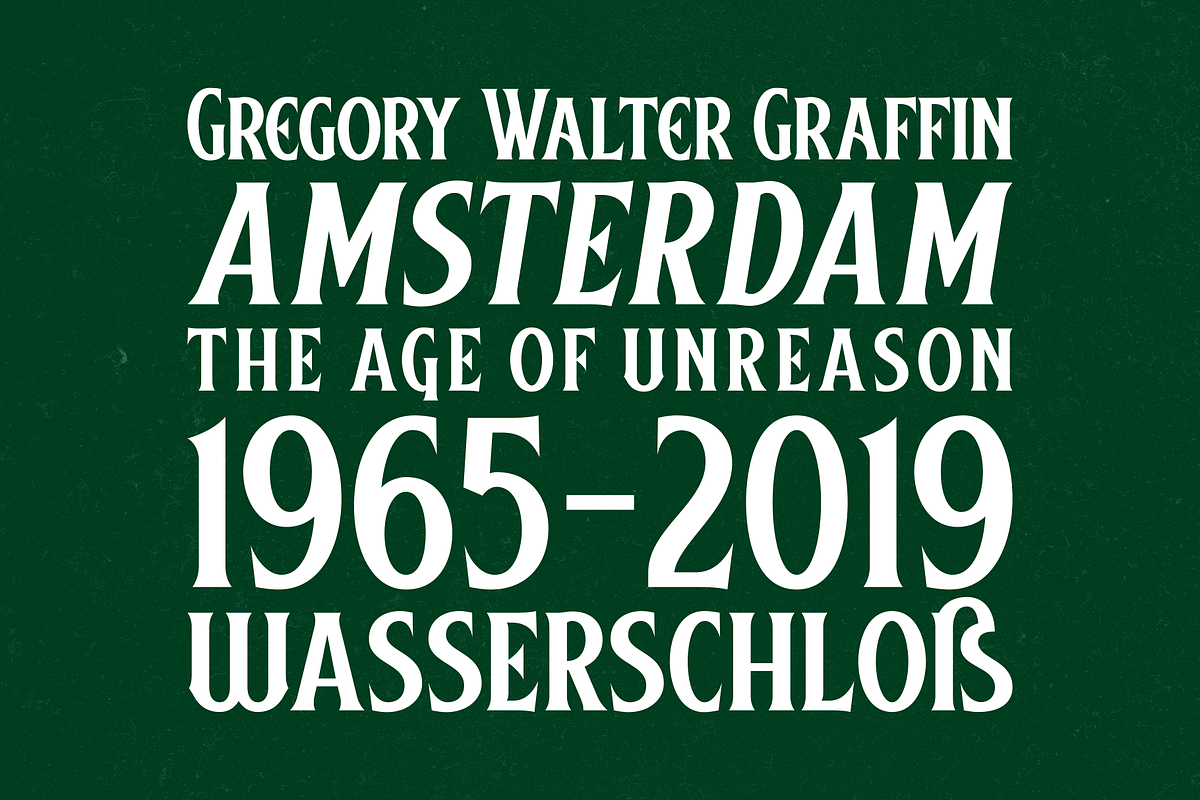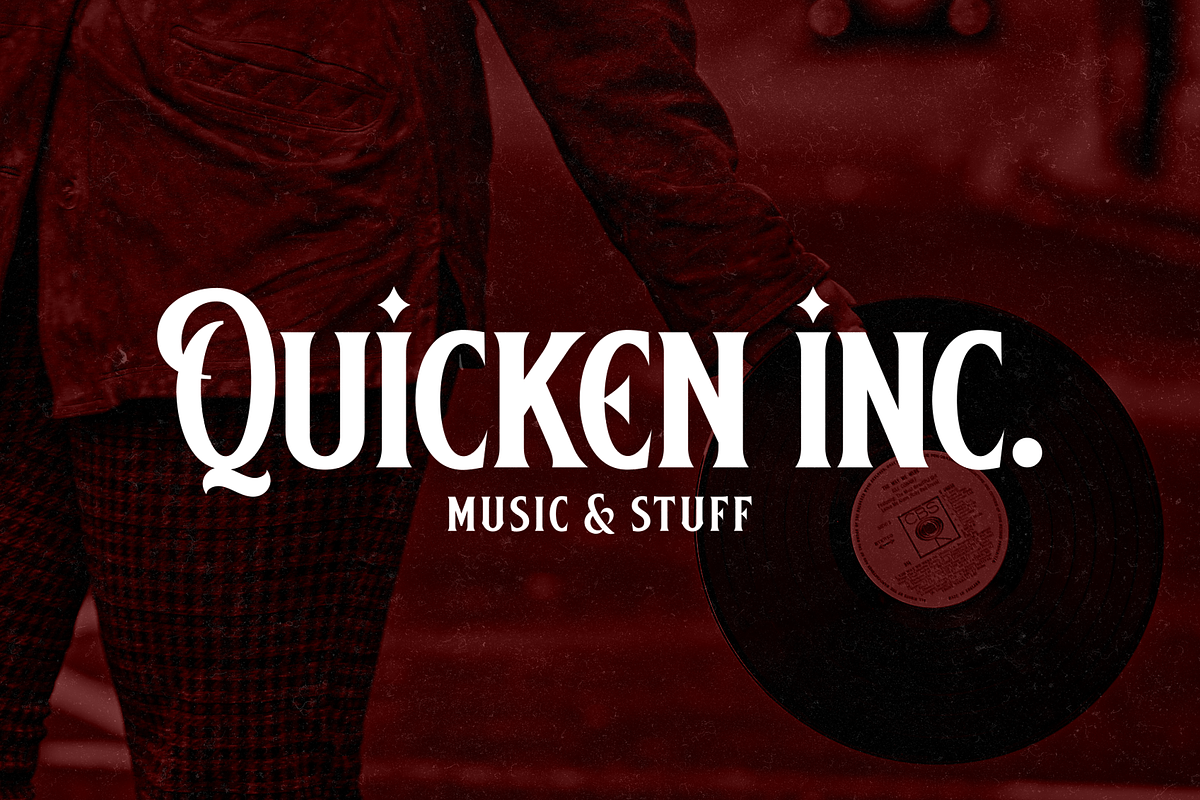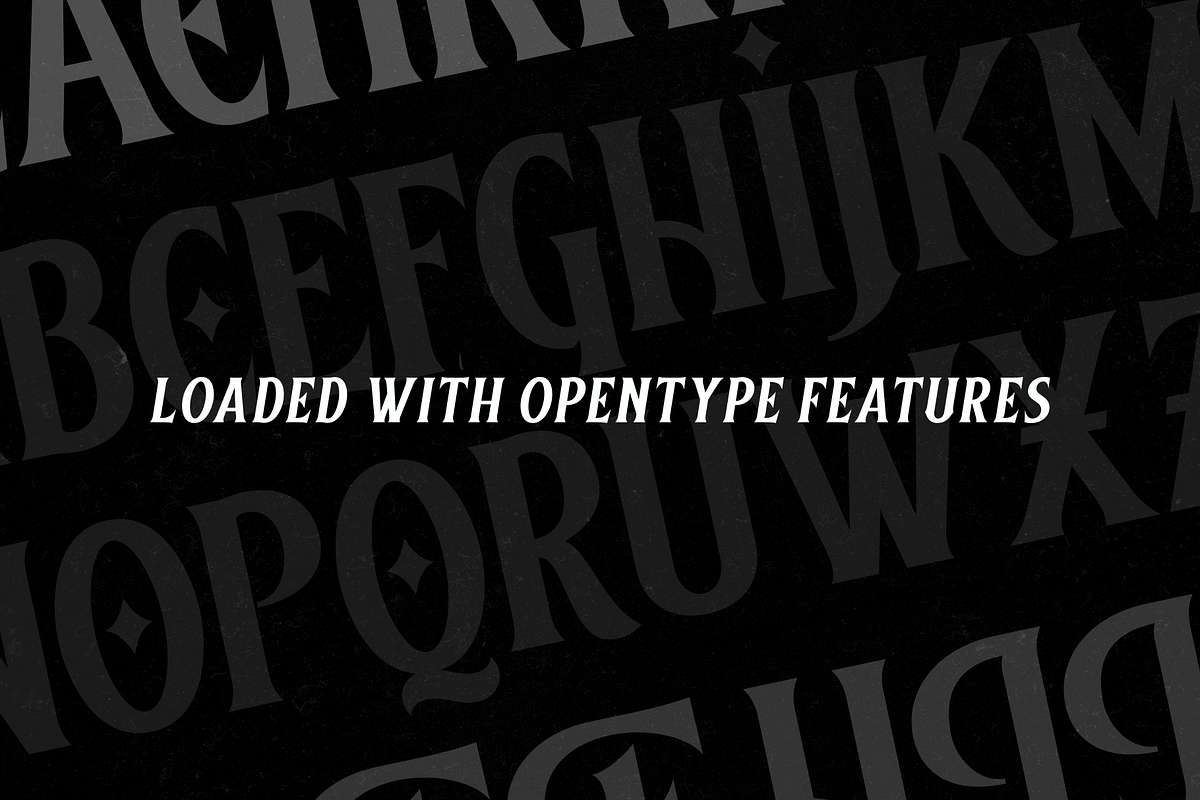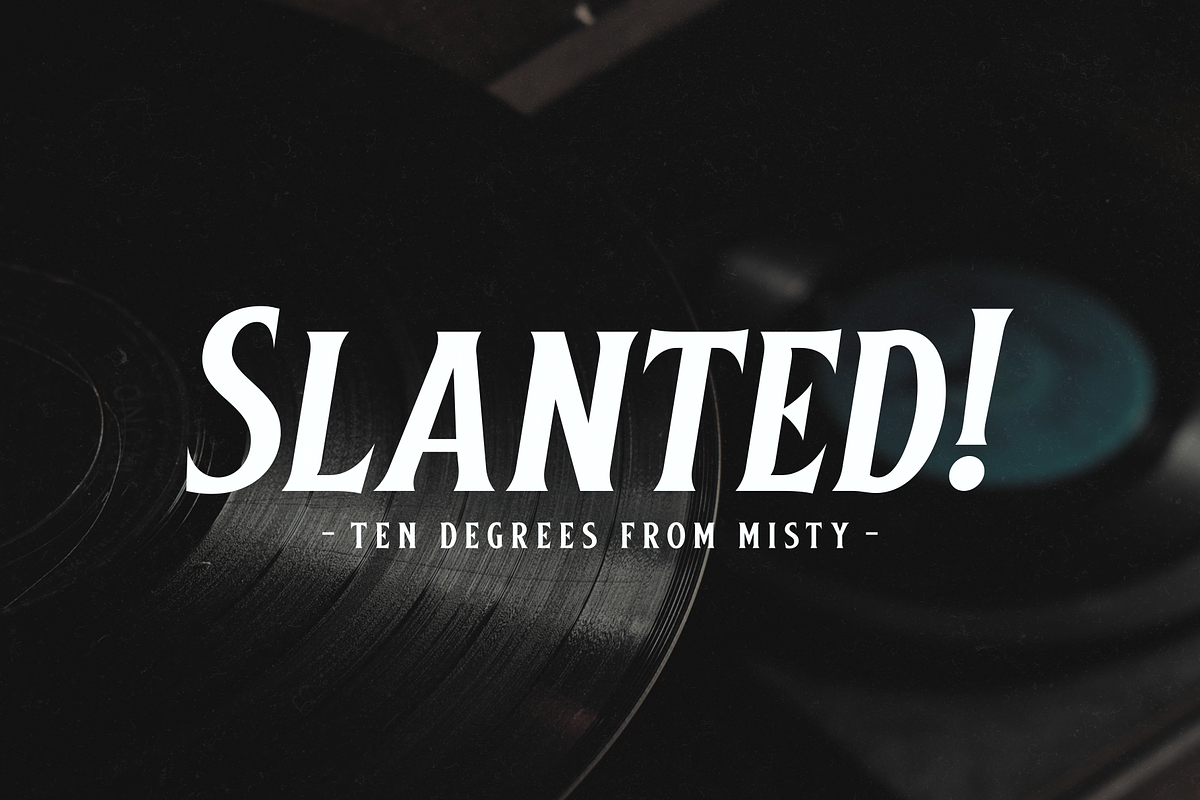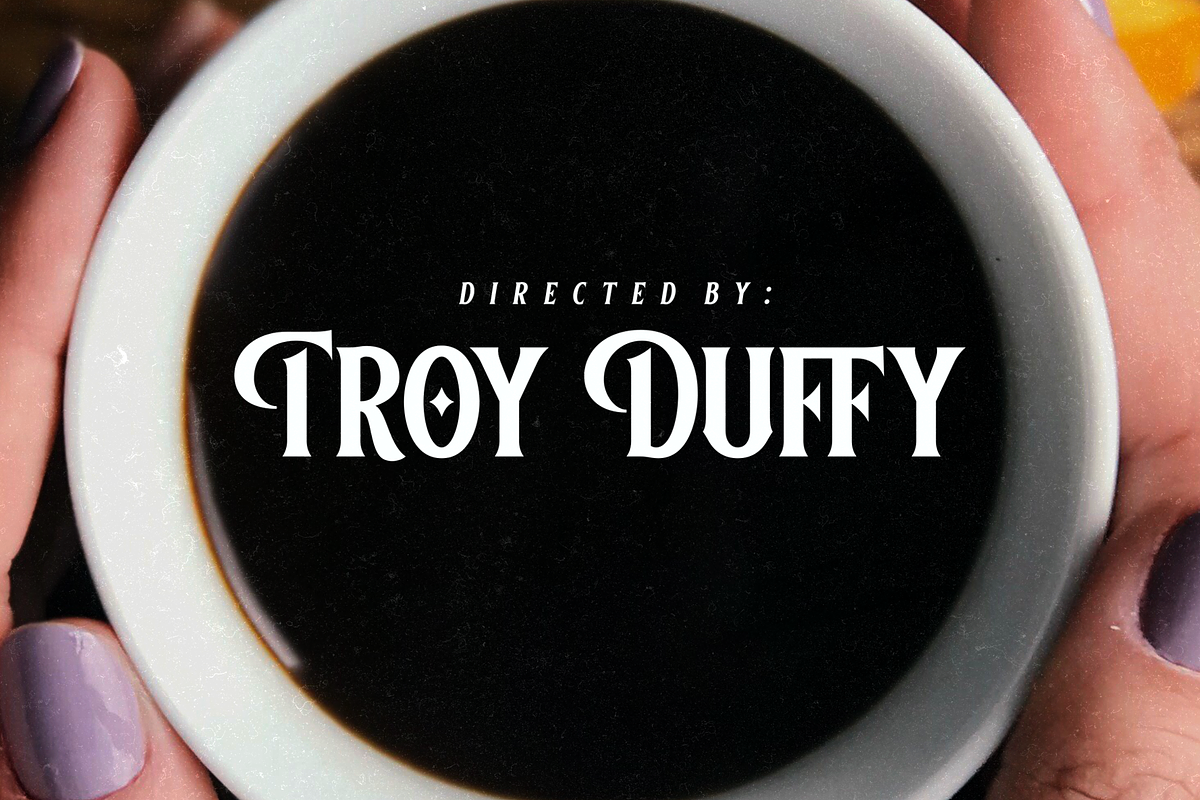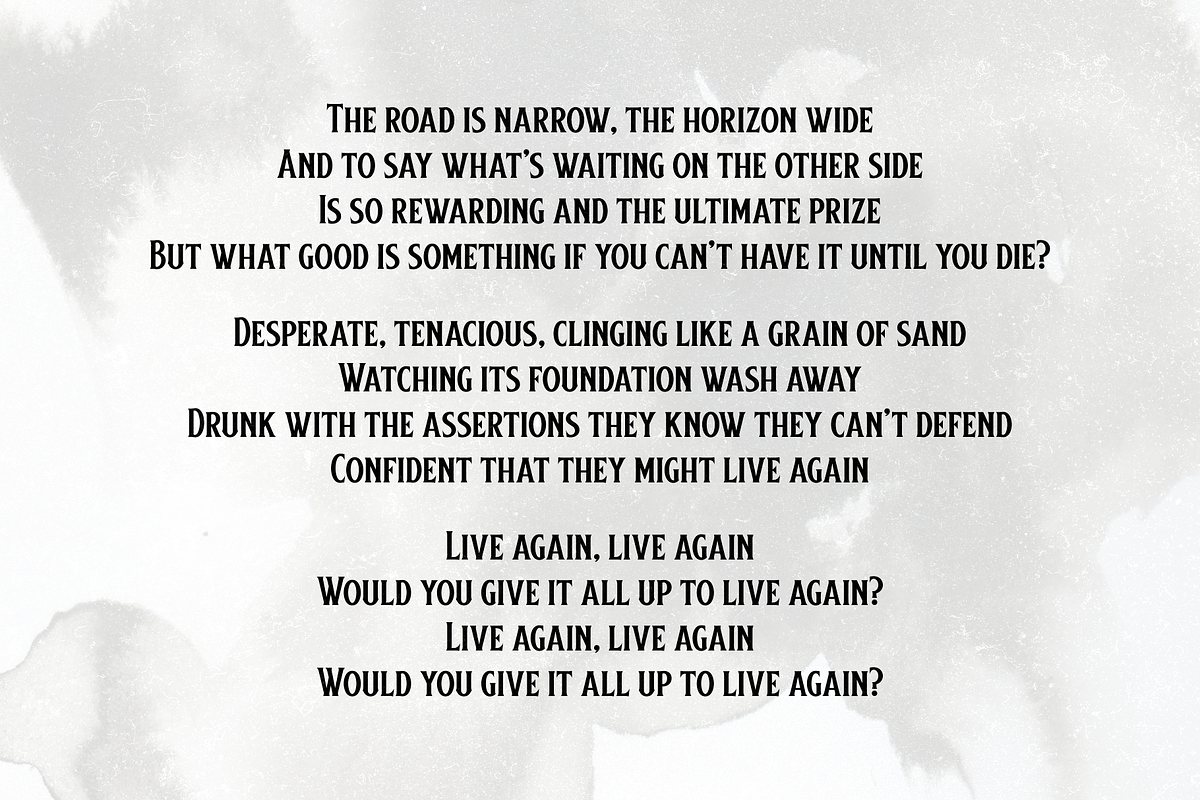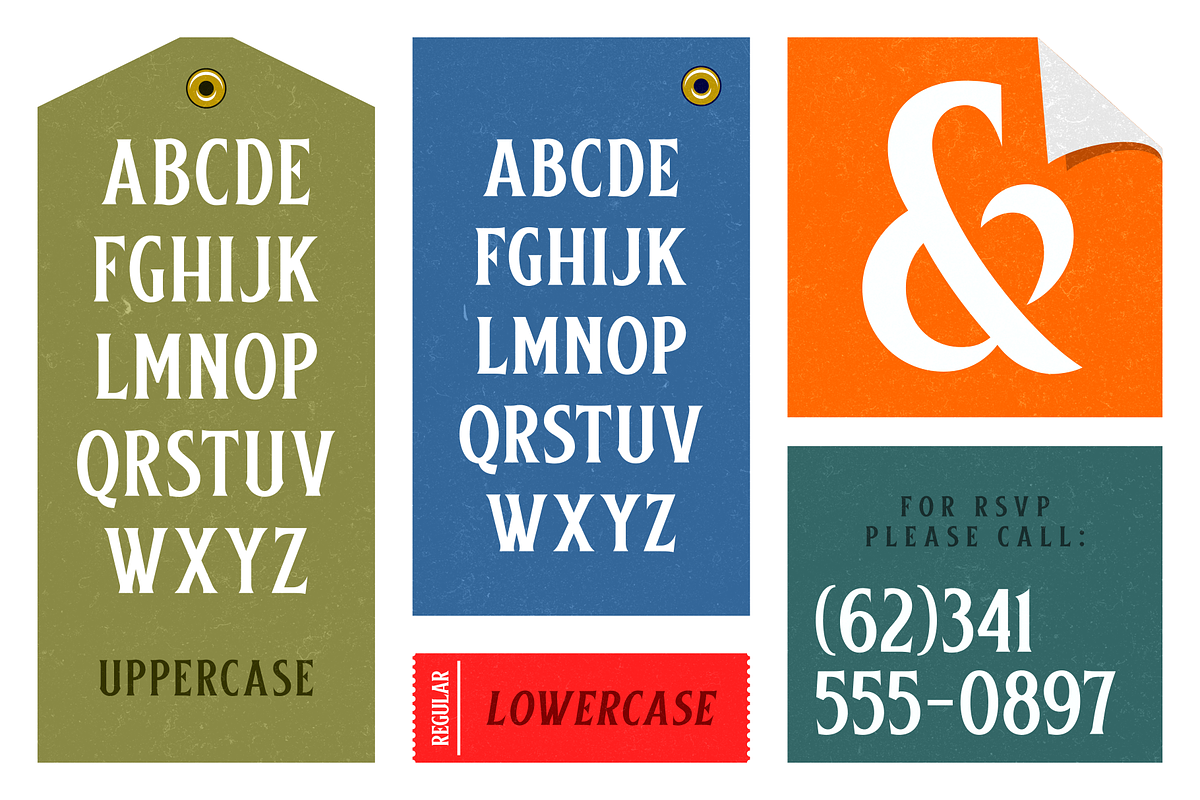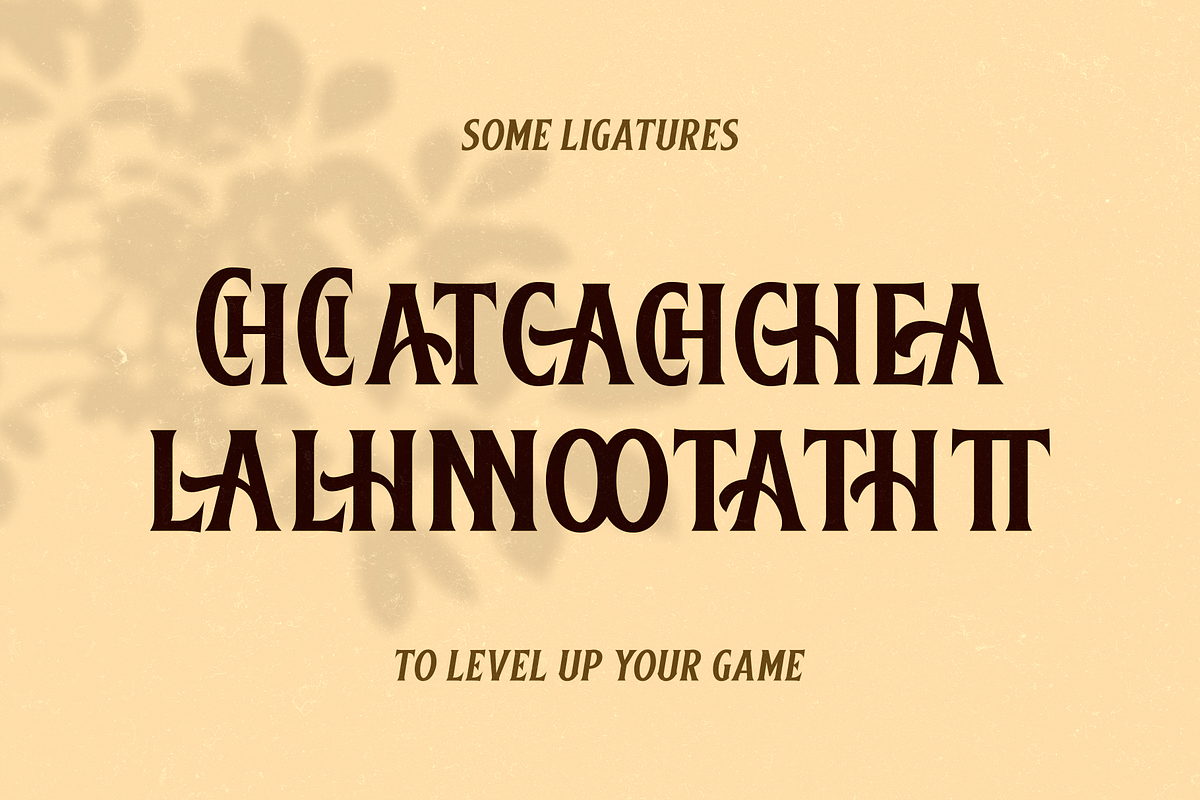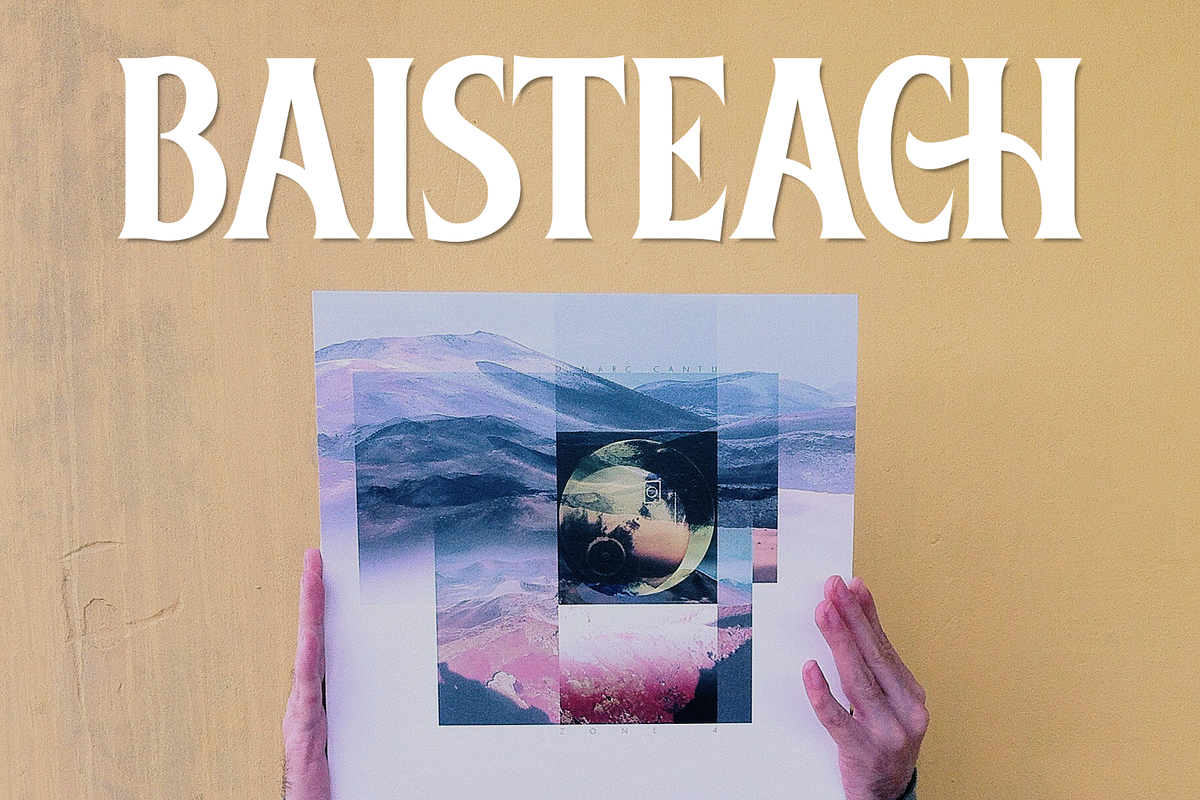
Baisteach | Vintage Serif
Introducing Baisteach, our latest all-caps vintage serif. Inspired from early 1900's typography that often used in signpaintings, packaging labels, and advertisements. This typeface is made of sharp serifs, clean edges and strong form, give you a simple yet impactful feels. Suits best for headline, logo/logotype, and many more. If you're a fan of classic typography, make sure you add this font to your design toolbox. Last but not least, dont forget to activate its OpenType Feature to get the wider selection of letter combinations.
- OpenType features such as alternate characters, stylistic sets,swashes, ligatures, etc,
- Two styles: Regular, and Italic,